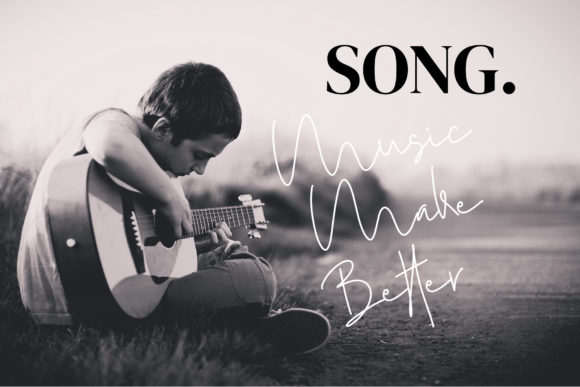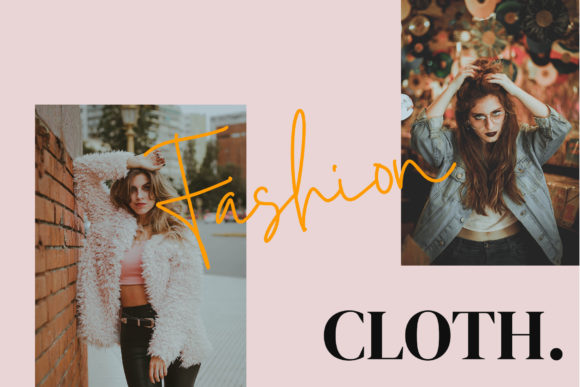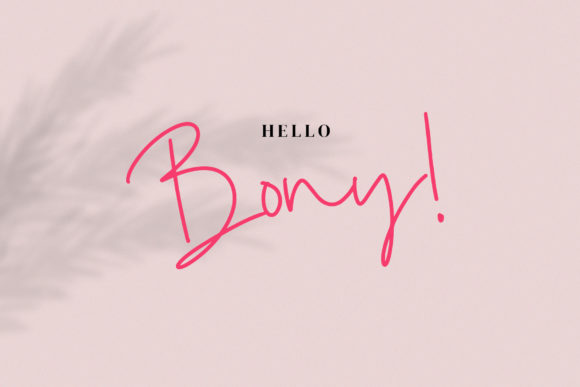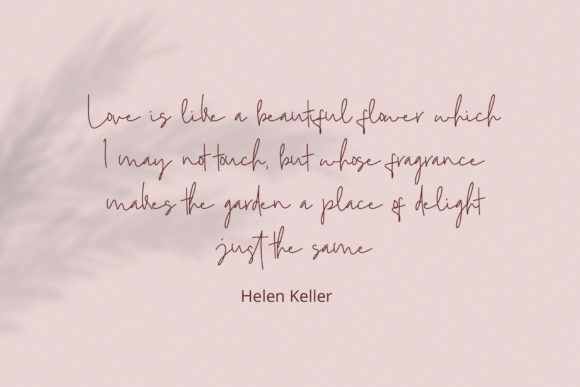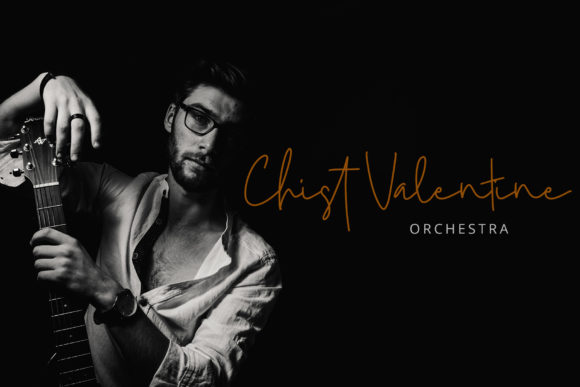
Introduction to Mistice Font Font
Fonts play a crucial role in design, and the Mistice Font font is a typeface that brings both character and versatility to any project. Whether you’re working on a branding project, a website, or a print design, the Mistice Font font offers a unique style that can elevate your work.
Mistice is a fun and cool handwritten font with a bold charm.
Fall in love with its authenticity .
Key Features of Mistice Font Font
Why Choose Mistice Font Font?
The Mistice Font font is more than just a typeface – it’s a design tool that helps you communicate your message with style and clarity. Its unique character set and versatile design make it suitable for a wide range of applications, from elegant invitations to bold headlines.
With its carefully crafted letterforms and balanced proportions, the Mistice Font font ensures readability and visual appeal across all mediums.
What makes Mistice Font font special?
The Mistice Font font stands out with its unique design, exceptional readability, and versatility across various design applications.